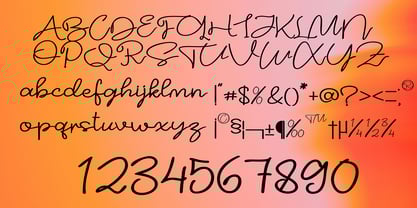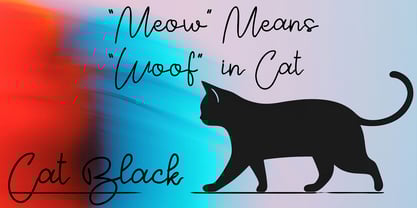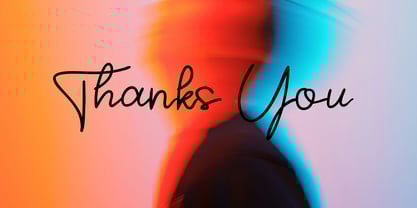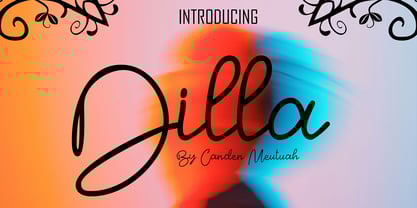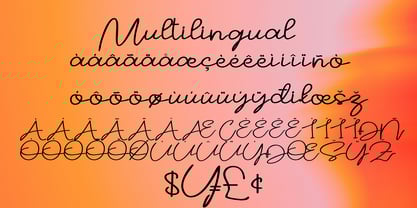
Dilla
by Canden Meutuah
The Dilla Font Family was designed by Canden Meutuah and published by Canden Meutuah. Dilla contains 1 styles.
Dilla is an elegant and captivating font that combines a soft, unique touch with distinctive strokes, giving it a special character that is both meaningful and versatile. Ideal for a variety of design projects, crafts, and creative endeavors, this font features a comprehensive set of characters that enhance its usability. Compatible with multiple applications, including Windows and open-source platforms, Dilla’s organic style is tailored for a broad spectrum of products. It elevates designs, making them attractive to diverse audiences across various artistic and creative industries.